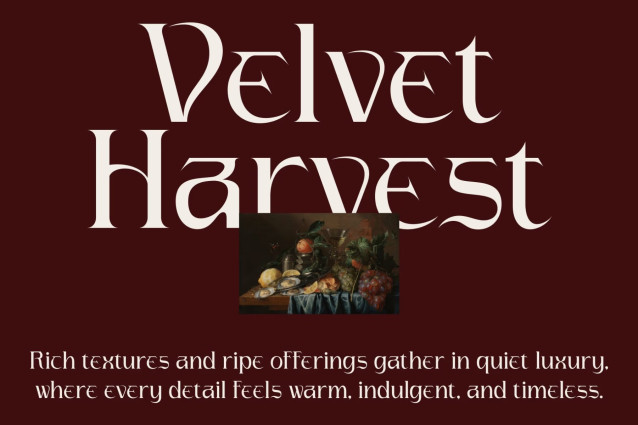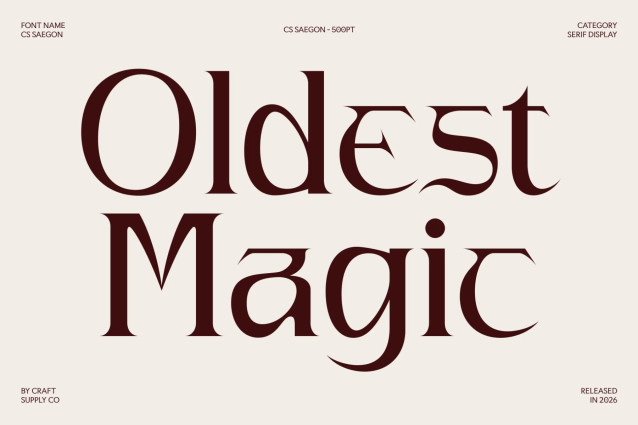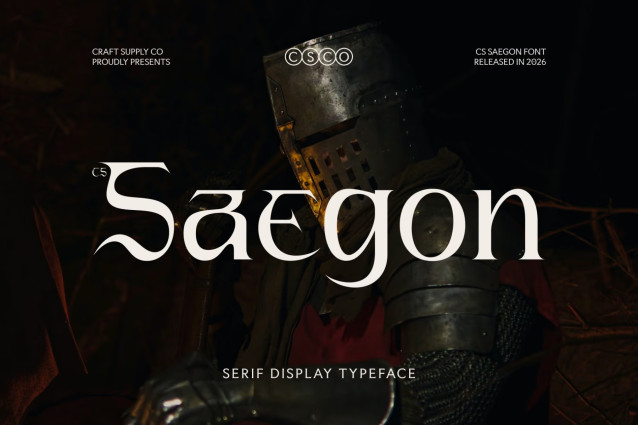
CS Saegon – Modern Serif Font
CS Saegon – Decorative Serif with Fresh Contemporary Charm
Serif Font with Fresh Decorative Style
This is a serif font designed to bring a fresh perspective to decorative typography. Combining elegant serif foundations with creative ornamental details, this typeface creates a distinctive visual identity that feels modern, stylish, and full of character. It is crafted for designers who want typography that balances sophistication with artistic expression.
Decorative Details with Unique Personality
The defining feature of this font lies in its decorative design elements that add charm and individuality to every letterform. These carefully crafted details create visual interest while preserving readability, allowing the font to stand out beautifully in both display and branding applications. The result is typography that feels expressive, memorable, and refined.
Contemporary Aesthetic with Creative Appeal
This font blends classic serif elegance with a fresh contemporary attitude, making it versatile across a wide range of design styles. Its balanced proportions and artistic touches create a harmonious visual rhythm that enhances modern compositions while maintaining a timeless sense of beauty.